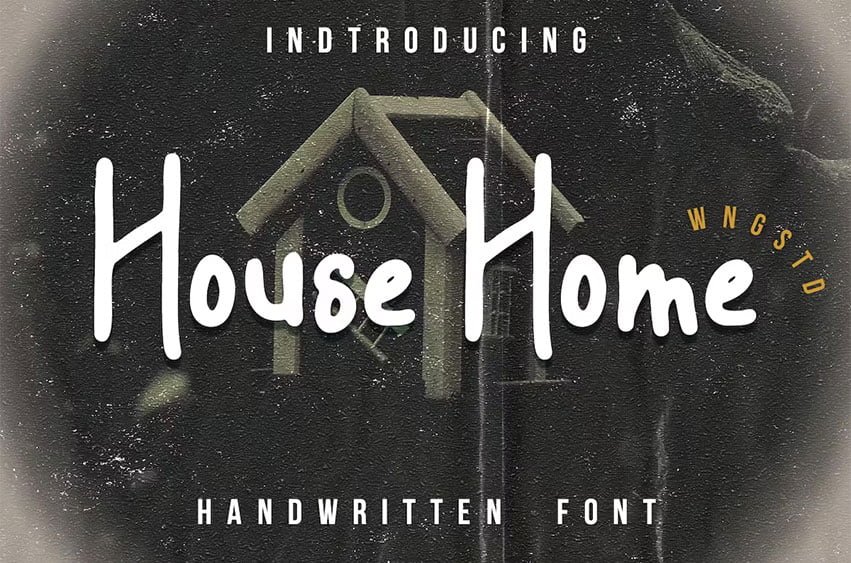
House Home Font is a sweet and friendly display font. Its natural and unique style makes it incredibly fitting for a large pool of designs. The only limit is your imagination!